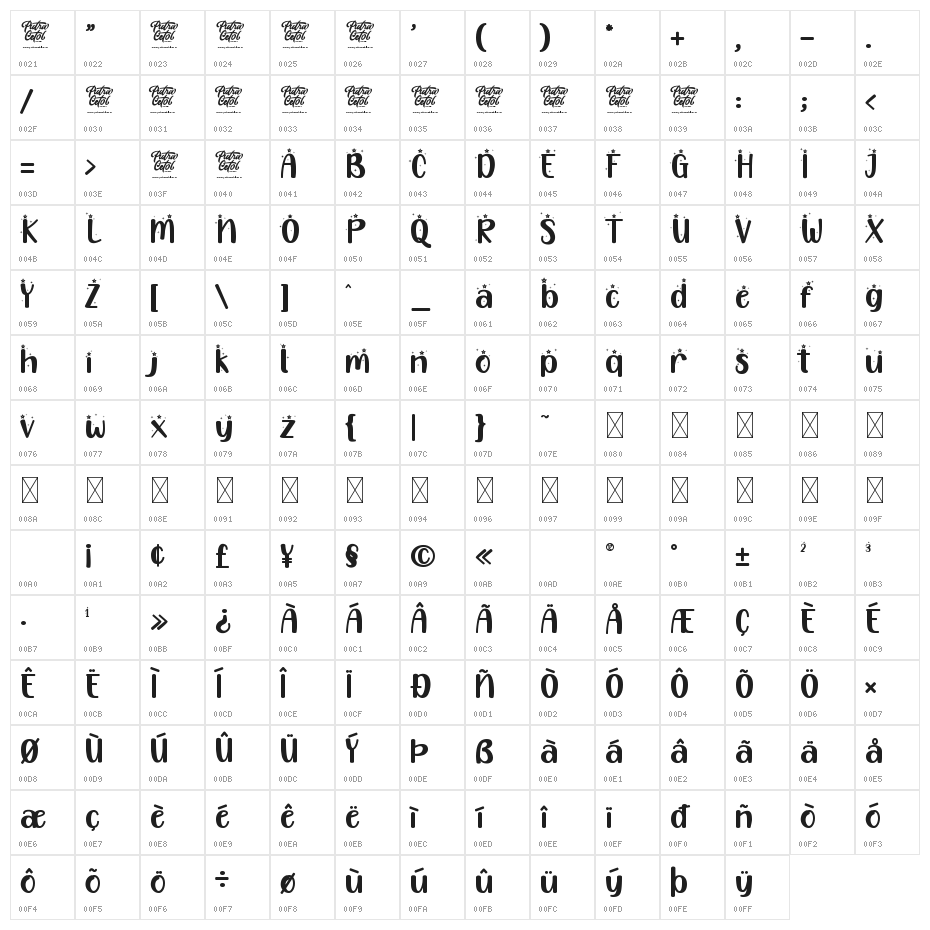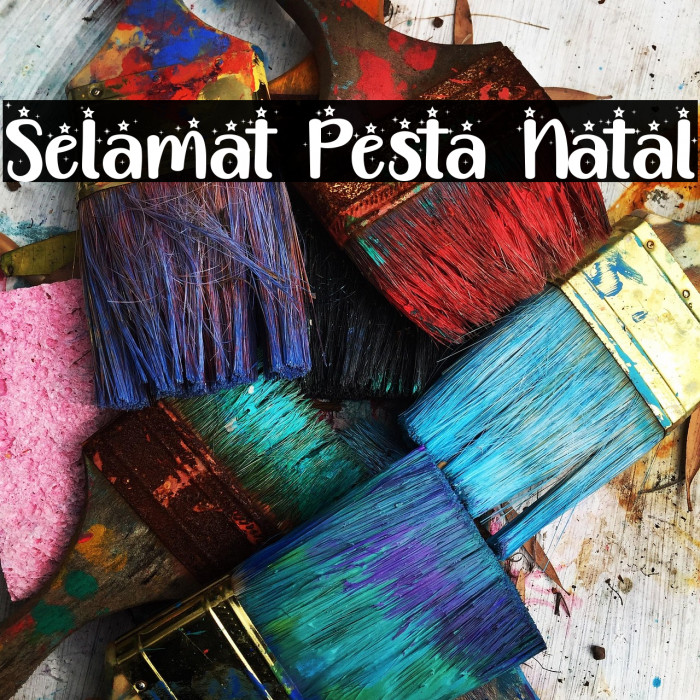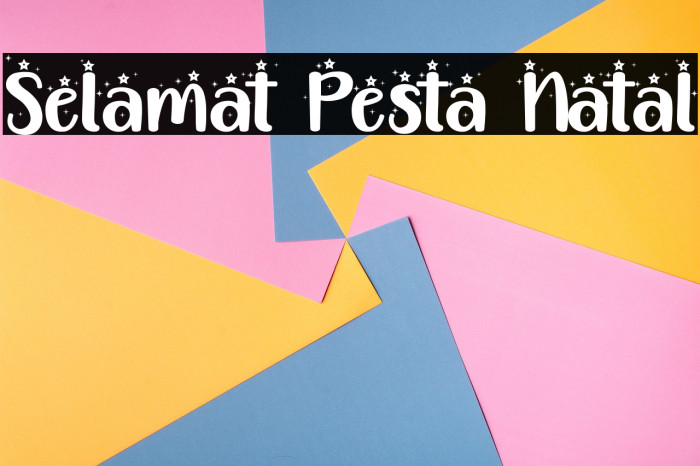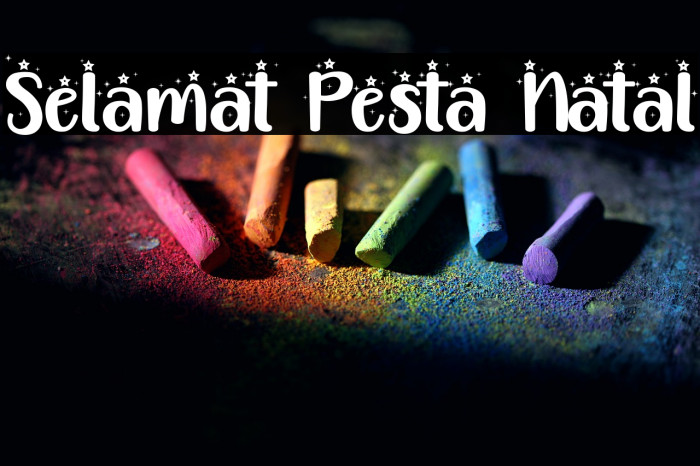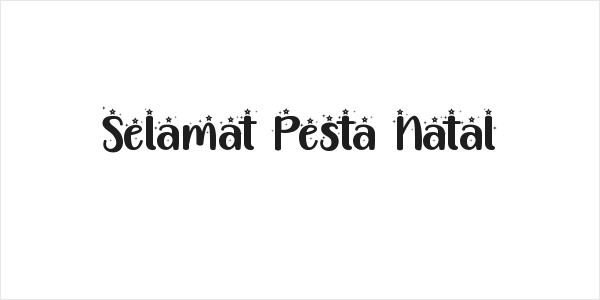
Selamat Pesta Natal Font
Selamat Pesta Natal Description
This playful and whimsical font features bold, rounded characters adorned with small stars, giving it a festive and cheerful appearance. The uppercase letters are tall and slightly narrow, while the lowercase letters maintain a consistent rounded style. The font includes a full set of uppercase and lowercase letters, numbers, and a selection of special characters. The decorative elements, such as stars, add a unique touch, making it ideal for celebratory themes. The overall design is both eye-catching and friendly, suitable for a variety of creative projects.
| Proposed Projects | Ideal for holiday cards, party invitations, children's book covers, and festive banners. |